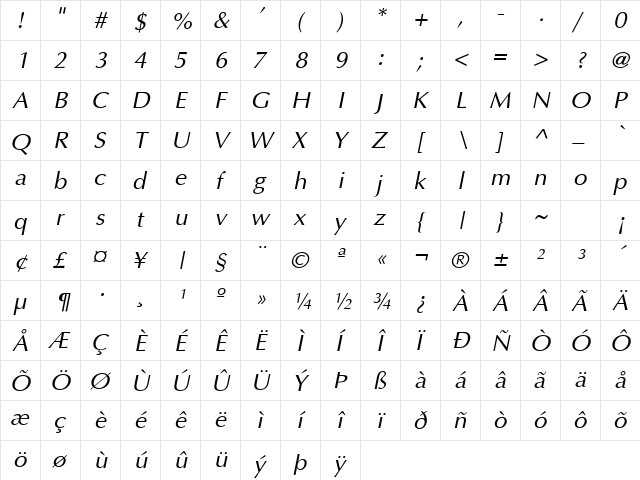
ft5i Italic
Design Context for ft5i Typeface
ft5i is a composed and adaptable typeface that performs quietly and consistently across a wide range of design contexts. Its italic angle brings a sense of urgency and motion to the letterforms.
Pro Tip: Use ft5i for emphasis, pull quotes, and subheadings where its slanted energy can add rhythm to the layout.